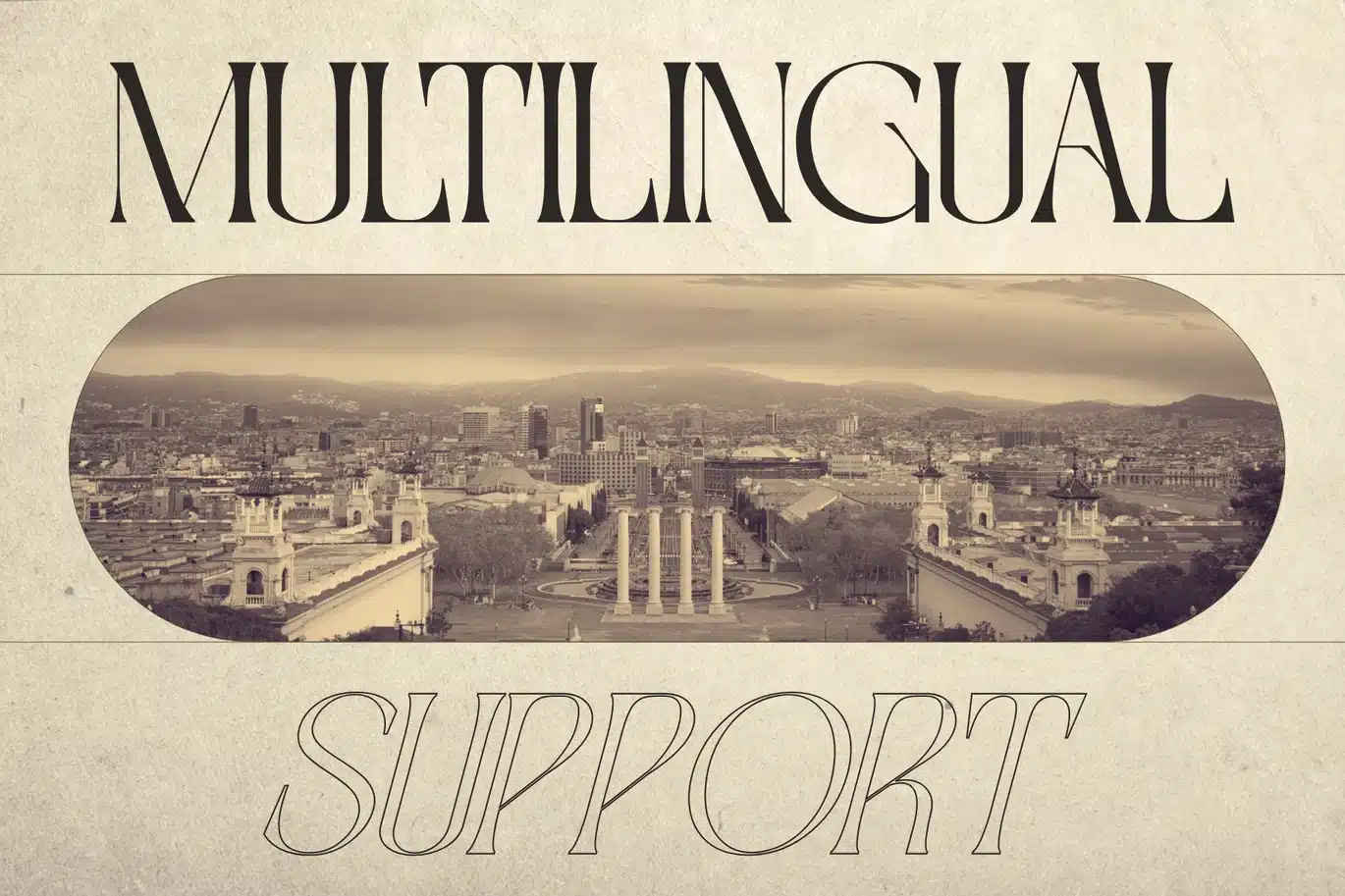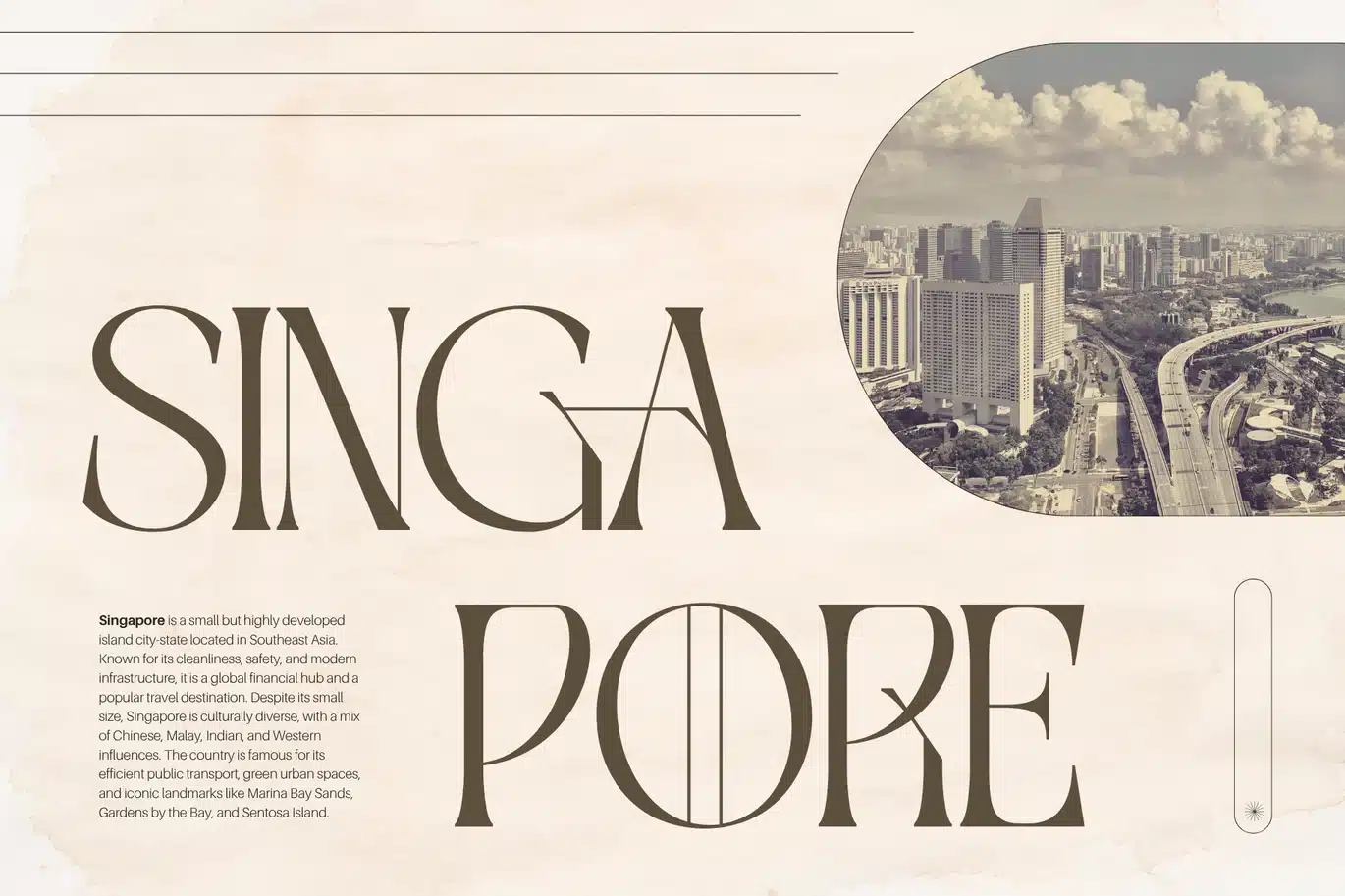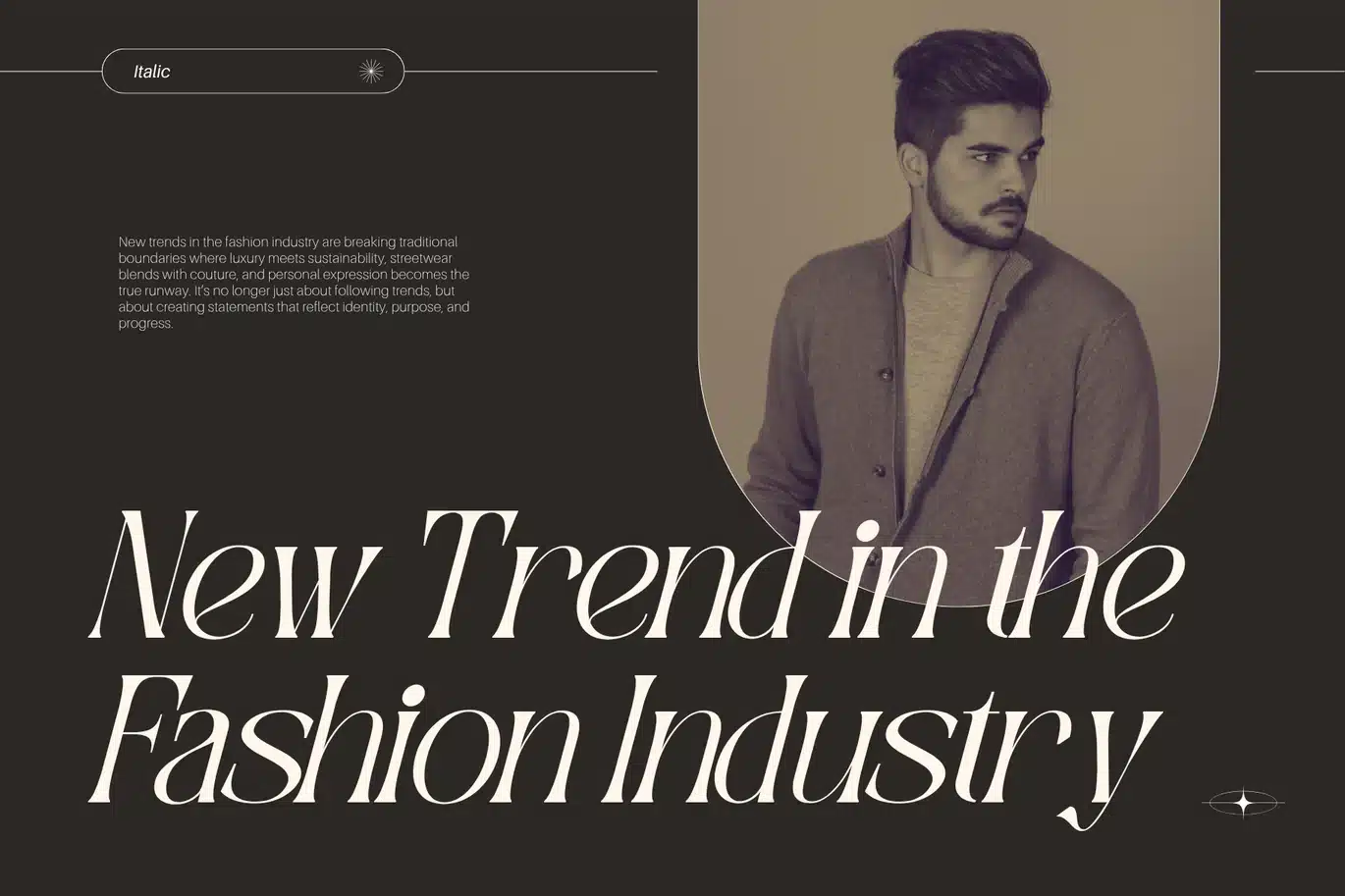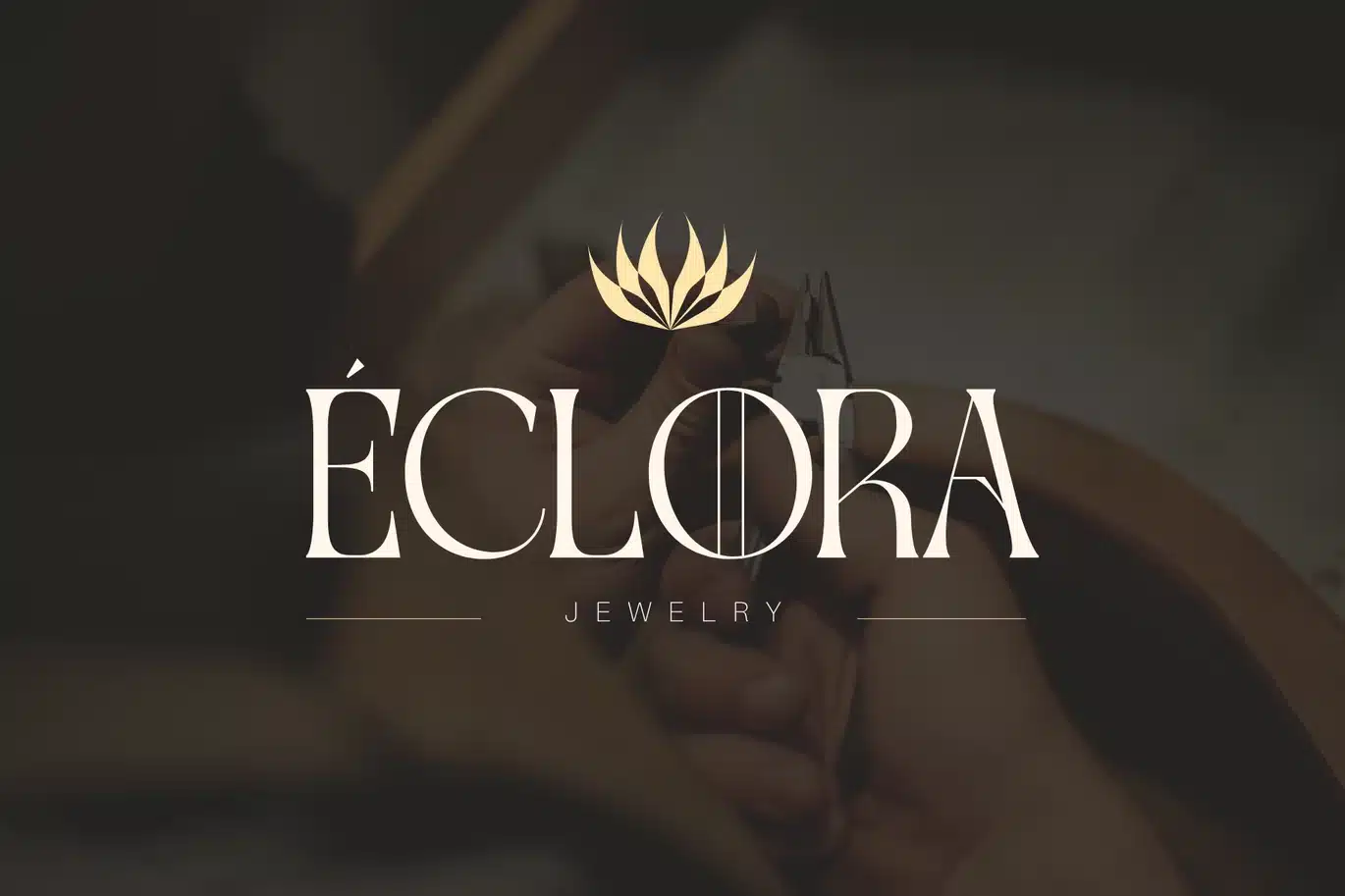
Gavona – Logo Branding Font
Gavona offers beautiful typographic harmony for a diversity of design projects, including logos & branding, social media posts, advertisements & product designs.